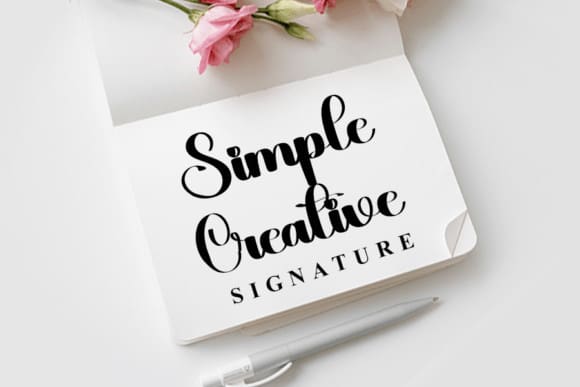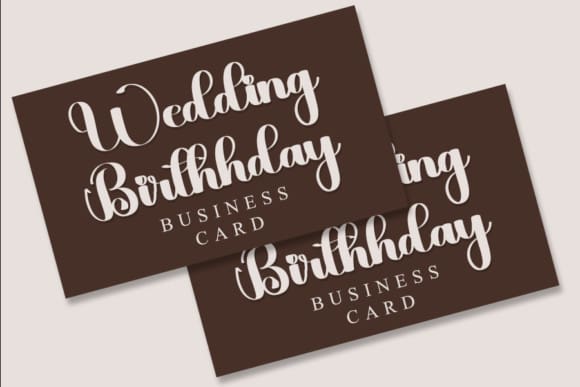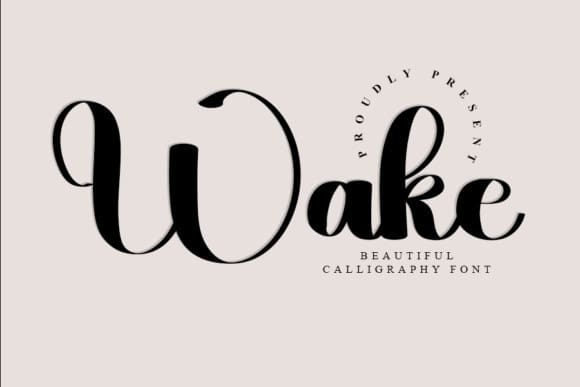
Wake Script Font
Wake Script Font is a stylish handwritten font with a contemporary atmosphere and impeccable form, inspired by a timeless classic calligraphy. Not too thin and not too thick, balanced and varied, this font was designed to enhance the beauty of your projects.